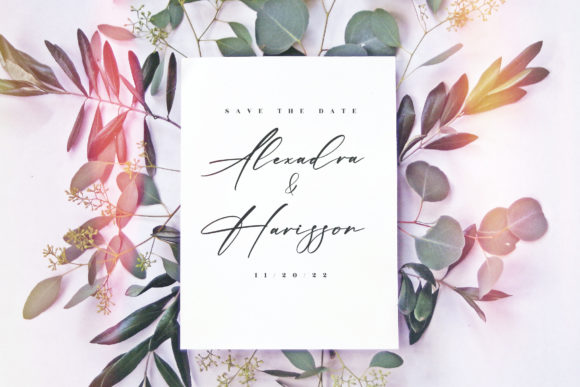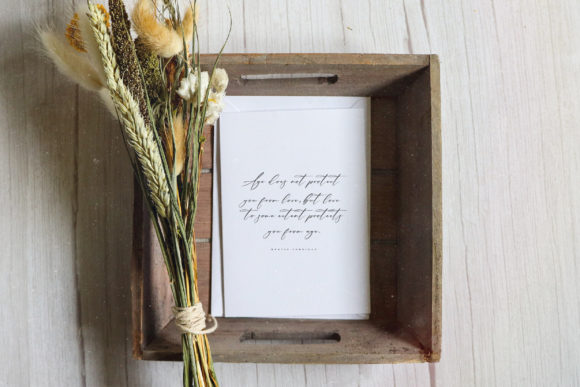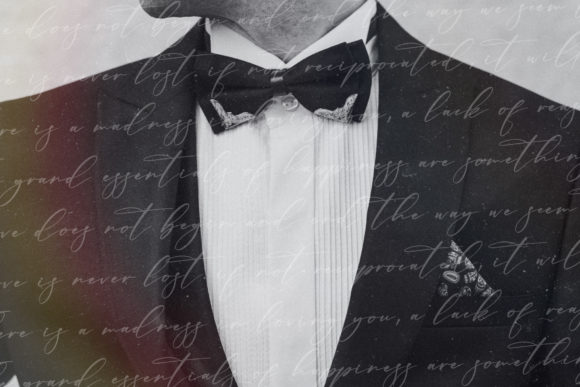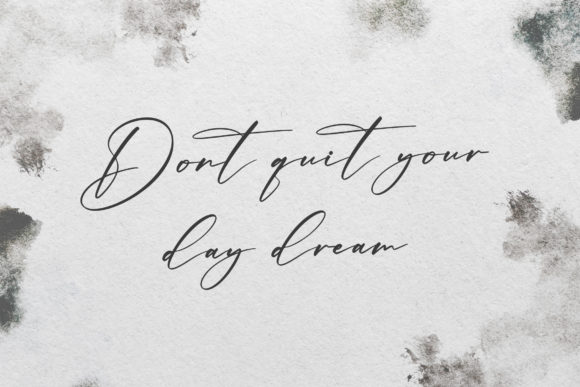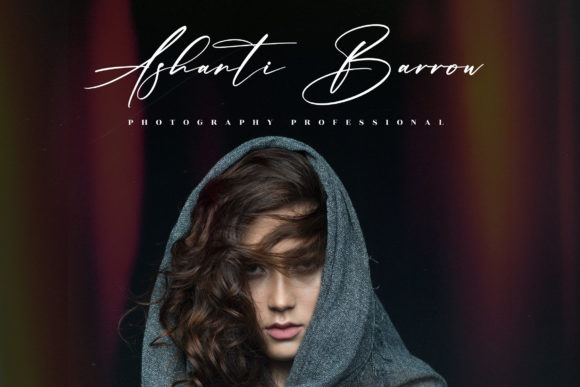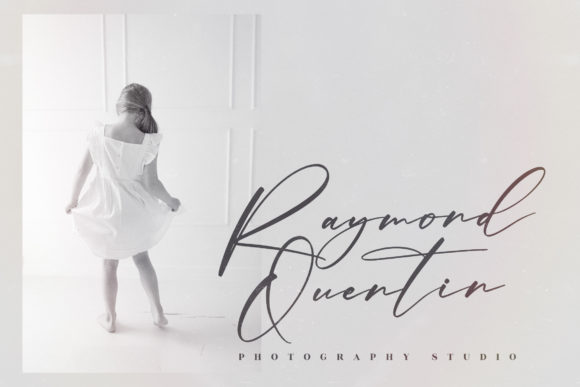
The Alexander Font: A Modern Signature Script to Elevate Your Designs
Have you ever been in the middle of a design project, and suddenly, you’re stuck on finding the perfect font? I recall a recent experience where a client asked for a logo design with a ” luxurious feel.” I scoured through my font library, but nothing seemed to fit the bill. That’s when I stumbled upon the Alexander font, a modern signature script that instantly elevated my design.
An Honest Review of Alexander Font
- ✨ Elegant and sophisticated: Alexander font exudes a sense of luxury and refinement, making it perfect for high-end designs.
- ✅ Highly versatile: From logos and branding projects to homeware designs, product packaging, and more, this font adapts seamlessly.
- 💫 Beautiful script details: The font’s intricate swashes and flourishes add a touch of personality to any design.
- 📚 Extensive language support: Alexander font supports multiple languages, making it a great choice for global brands.
While Alexander font is an excellent choice, there are a few minor considerations to keep in mind:
- ⚠️ Limited use in body text: Due to its script nature, Alexander font might not be the best choice for lengthy paragraphs.
- 🤔 Occasional kerning issues: As with any font, some manual kerning adjustments might be necessary to achieve optimal results.
Alexander font comes with a range of OpenType features, including:
- Stylistic alternates: Switch between different font styles to add variety to your design.
- Swashes: Add decorative flourishes to your text for a more elegant look.
- Glyphs: Access a range of alternative characters to customize your design.
The Designer Inspiration Behind Alexander Font
Alexander font was designed with the intention of creating a modern signature script that exudes elegance and sophistication. The designer aimed to craft a font that would be perfect for high-end designs, while also being versatile enough to use in a variety of contexts.
Q: What type of projects is Alexander font best suited for?
A: Alexander font is ideal for logos, branding projects, homeware designs, product packaging, and more.
Q: Does Alexander font support multiple languages?
A: Yes, Alexander font supports multiple languages, making it a great choice for global brands.
Q: Can I use Alexander font in combination with other fonts?
A: Absolutely! Alexander font pairs well with a range of fonts, making it easy to create stunning font combinations.